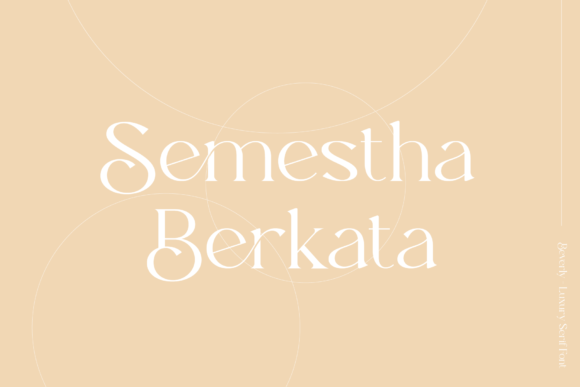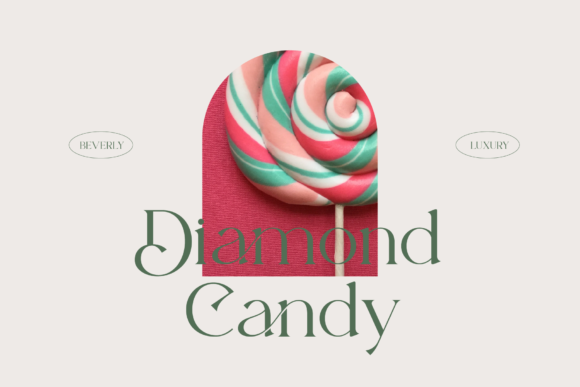
Beverly Font
Beverly is a modern and luxury serif font. Beverly comes with elegant stylistic alternates and ligatures that are perfect for any purpose like branding, logo design, poster, magazine, and many more. This font also has a natural and elegant shape, so you can easily customize it to your needs.